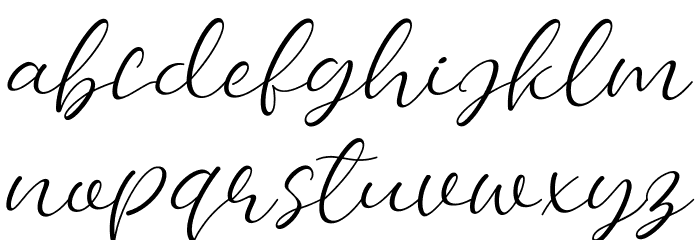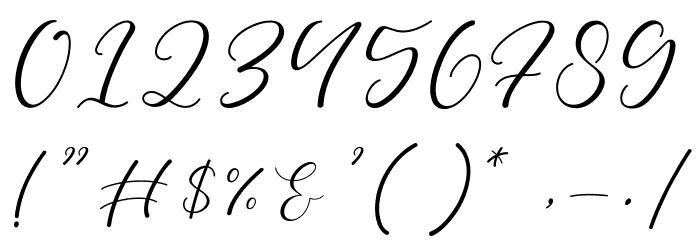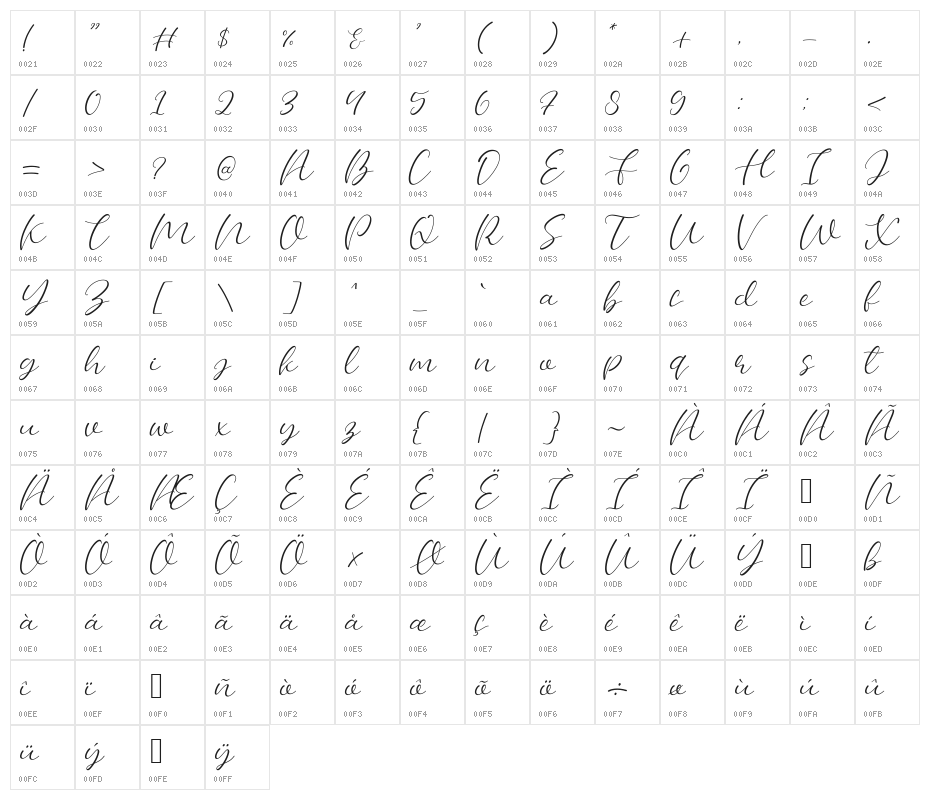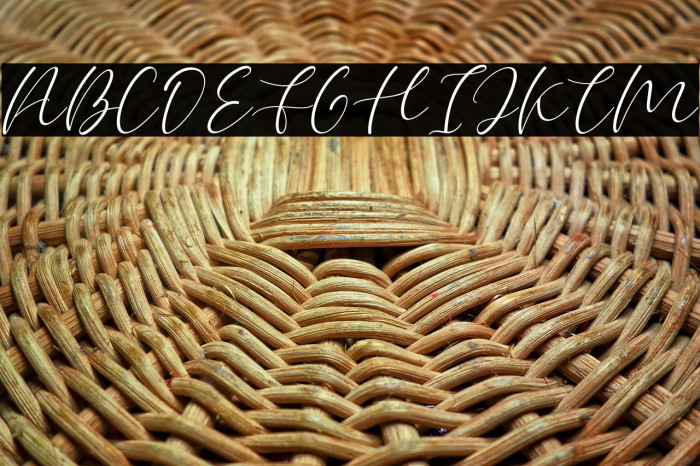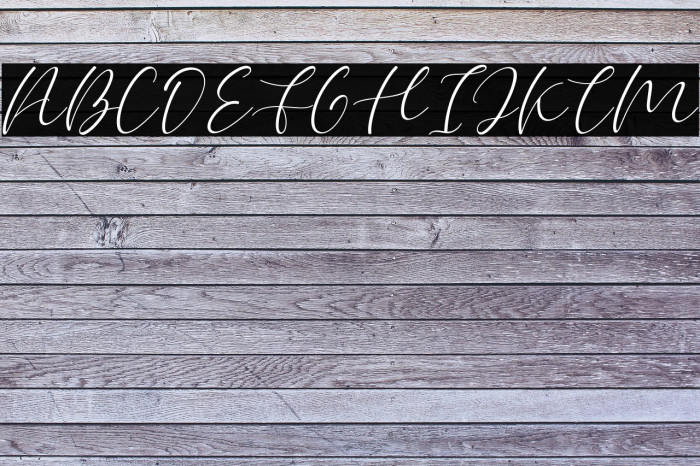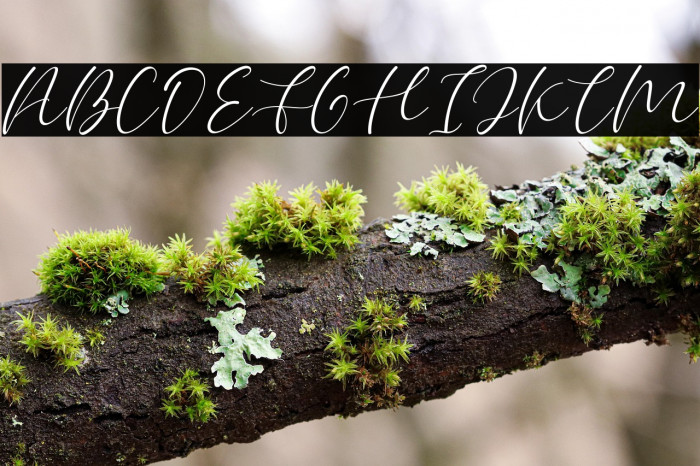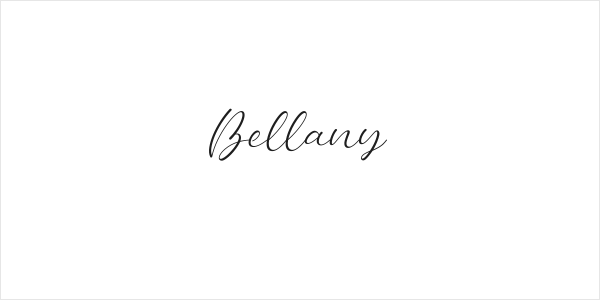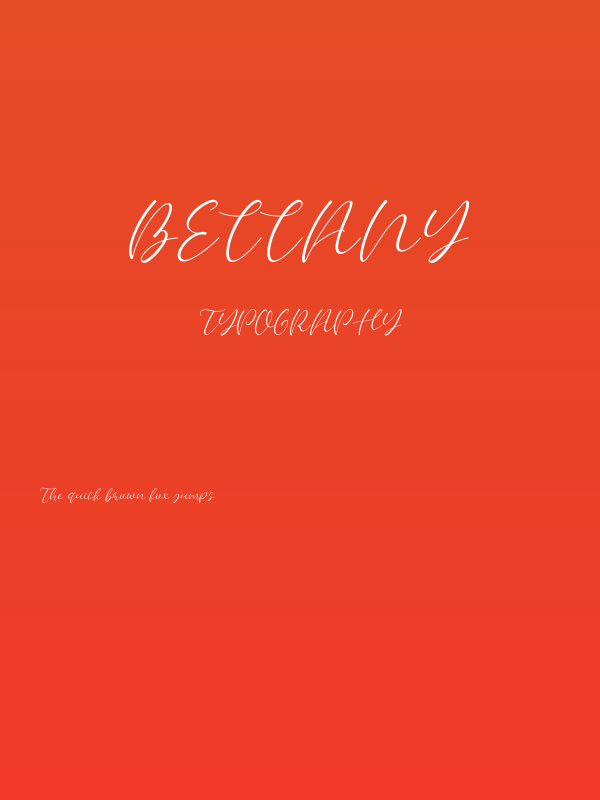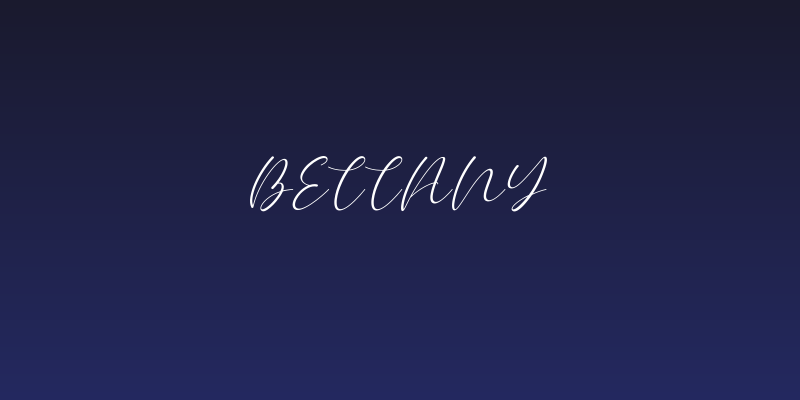
Bellany Font
This elegant script font features a flowing, cursive style that exudes sophistication and grace. The characters are connected with smooth, sweeping strokes, creating a sense of fluidity and movement. The uppercase letters are slightly more ornate, with flourishes that add a touch of flair, while the lowercase letters maintain a consistent, harmonious rhythm. The numerals are designed to match the overall aesthetic, with curves that complement the letters. Special characters are included, maintaining the same elegant style. This font is perfect for projects that require a personal, handwritten touch, such as invitations, greeting cards, and branding materials.
A graceful, flowing script font with elegant, connected characters.
- Font: Bellany
- Proposed Projects: Ideal for wedding invitations, personal branding, greeting cards, and elegant stationery.
- Category: Script
- Overall Style: Elegant, Sophisticated
- Use Case: Headlines, Invitations, Branding